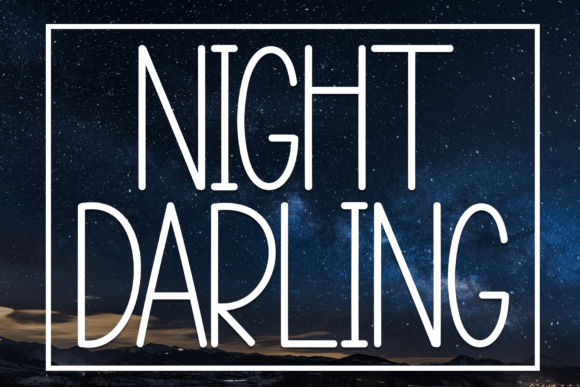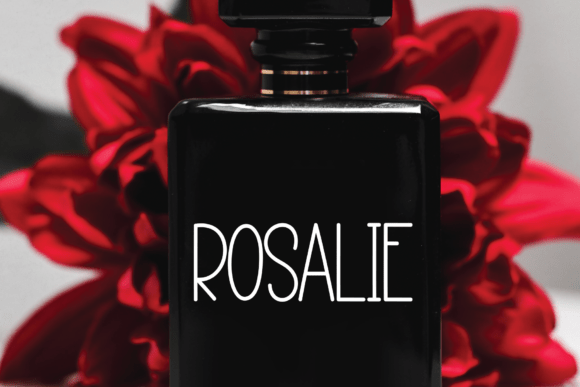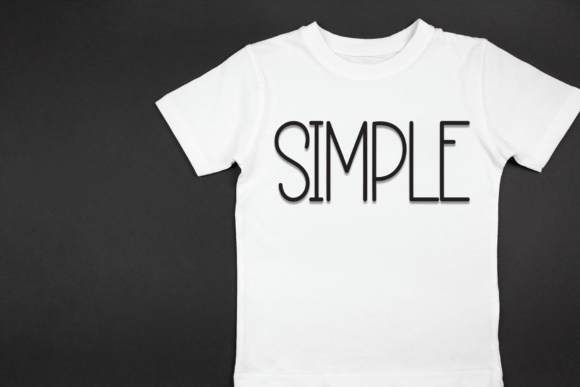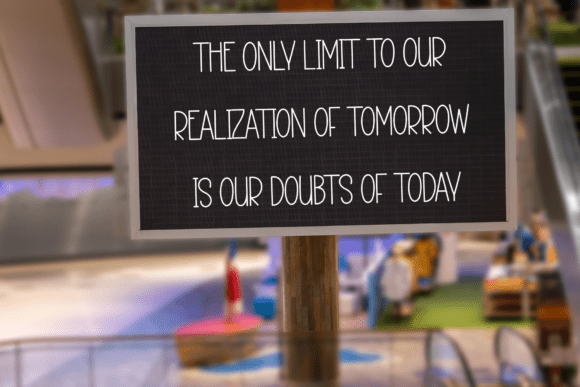
Night Darling Font: A Clean Display Font for Modern Social Media Design
About the Night Darling Font
We are excited to introduce Night Darling Font, a must-have typeface for any serious designer. Night Darling is a casual and neat display font that radiates a fresh, friendly vibe. With clean lines and a relaxed structure, it’s perfect for packaging, posters, and social media graphics. The approachable design adds charm and clarity to projects while maintaining a polished appearance.
Night Darling’s friendly demeanor makes it ideal for projects requiring approachability and a touch of casual elegance—think branding for cafes, boutiques, or lifestyle products. It also excels in short-form content such as headlines, social media posts, and invitations. However, its display nature makes it less suitable for body text or lengthy paragraphs.
For optimal visual harmony, pair Night Darling with a clean sans-serif like Open Sans for body text or a more geometric sans-serif such as Futura for a modern contrast. A script font like Great Vibes could add a touch of playful sophistication, while a classic serif like Garamond would provide a grounded counterpoint for more formal applications.
The font’s overall personality is best described as cheerful yet sophisticated; its casual elegance makes it versatile for a range of projects while maintaining a polished, professional feel.
Night Darling Font Usage Examples
Night Darling Font Example